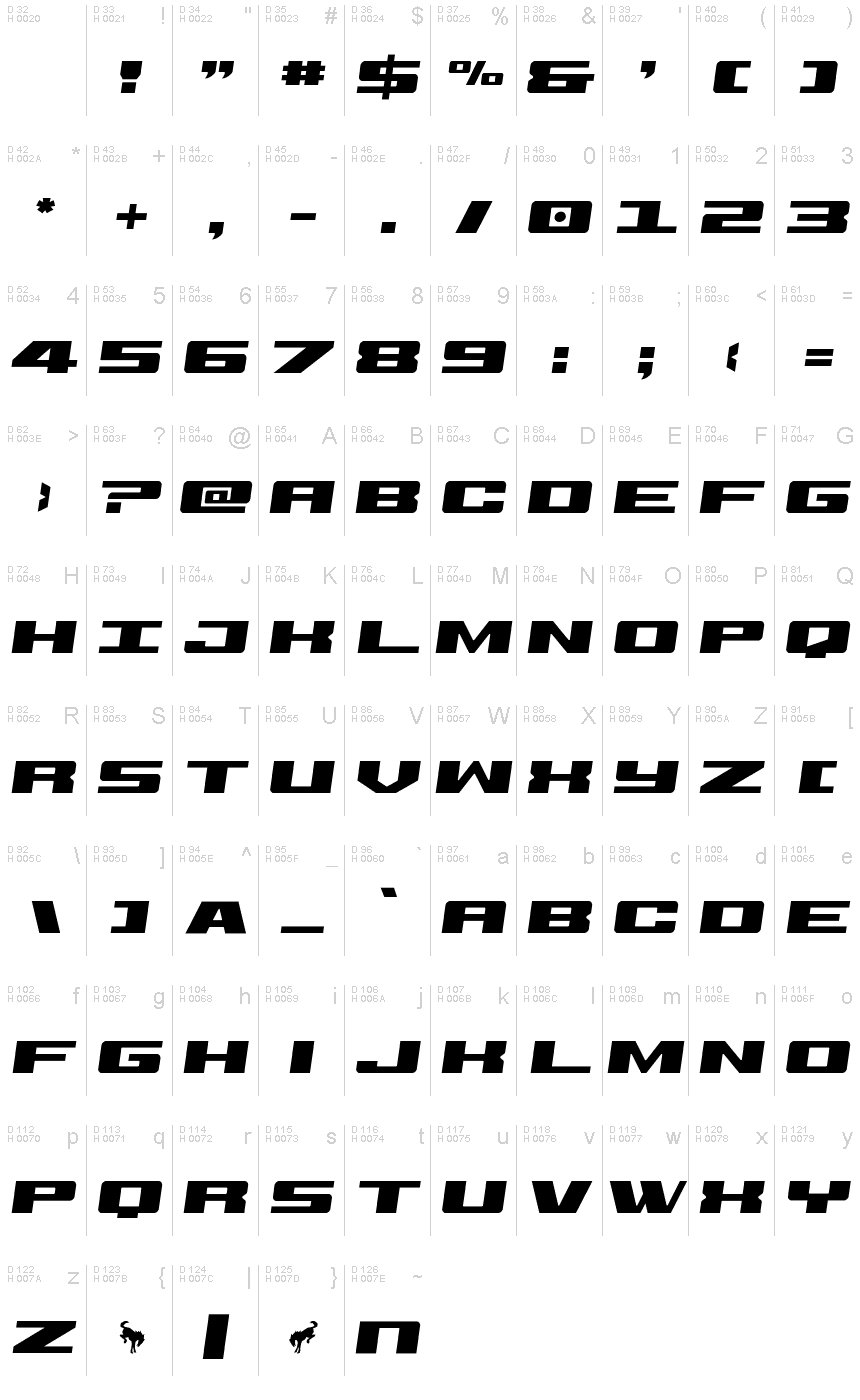
Buckin' Bronc Spaced Semi-Ital
Buckin' Bronc Spaced Semi-Italic is a display font that captivates with its techno style and extra-bold weight, designed by the creative minds at Iconian Fonts.
This font boasts an extra-expanded width that commands attention and creates a striking visual impact. Its semi-italic slant injects dynamism into every character, making it an ideal choice for projects that require a touch of modernity and energy. From eye-catching headlines to immersive digital experiences, Buckin' Bronc Spaced Semi-Italic promises to elevate your creative work with its distinctive flair and robust personality.
Embrace the power of this unique typeface to make your designs stand out in a world where boldness leads the way.
This font boasts an extra-expanded width that commands attention and creates a striking visual impact. Its semi-italic slant injects dynamism into every character, making it an ideal choice for projects that require a touch of modernity and energy. From eye-catching headlines to immersive digital experiences, Buckin' Bronc Spaced Semi-Italic promises to elevate your creative work with its distinctive flair and robust personality.
Embrace the power of this unique typeface to make your designs stand out in a world where boldness leads the way.